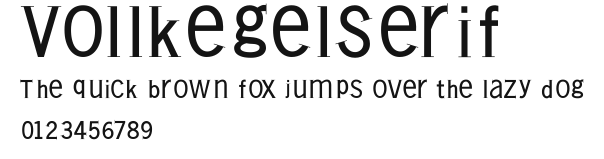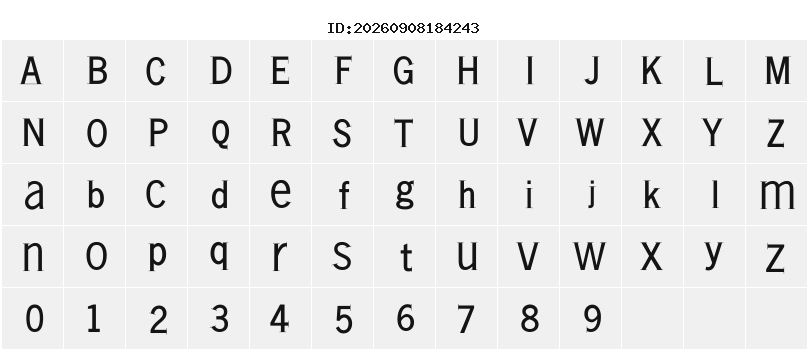
• Font Name: VollkegelSerif
• Full Font Name: VollkegelSerif
About VollkegelSerif.ttf
VollkegelSerif.ttf is a modern, elegant sans-serif font designed for ultimate readability and visual harmony. Perfect for branding, headlines, web design, and print materials.